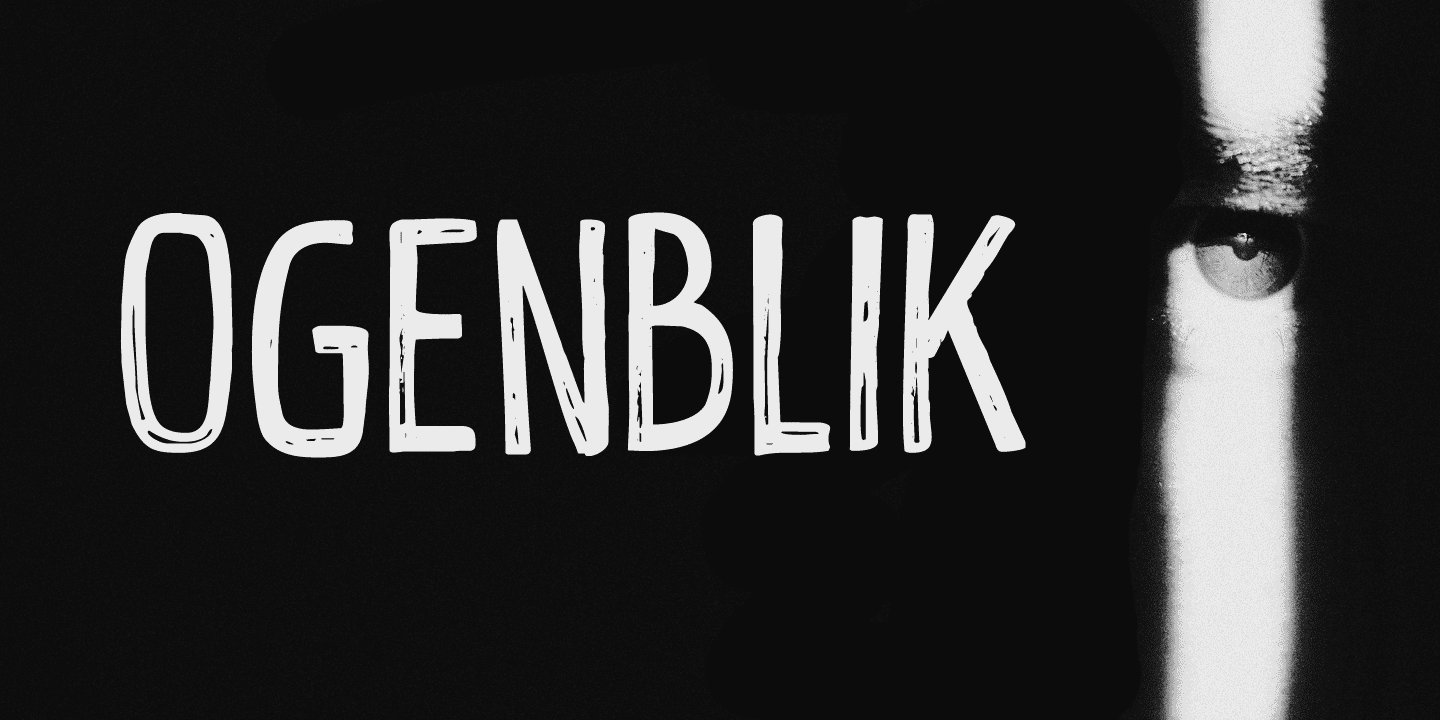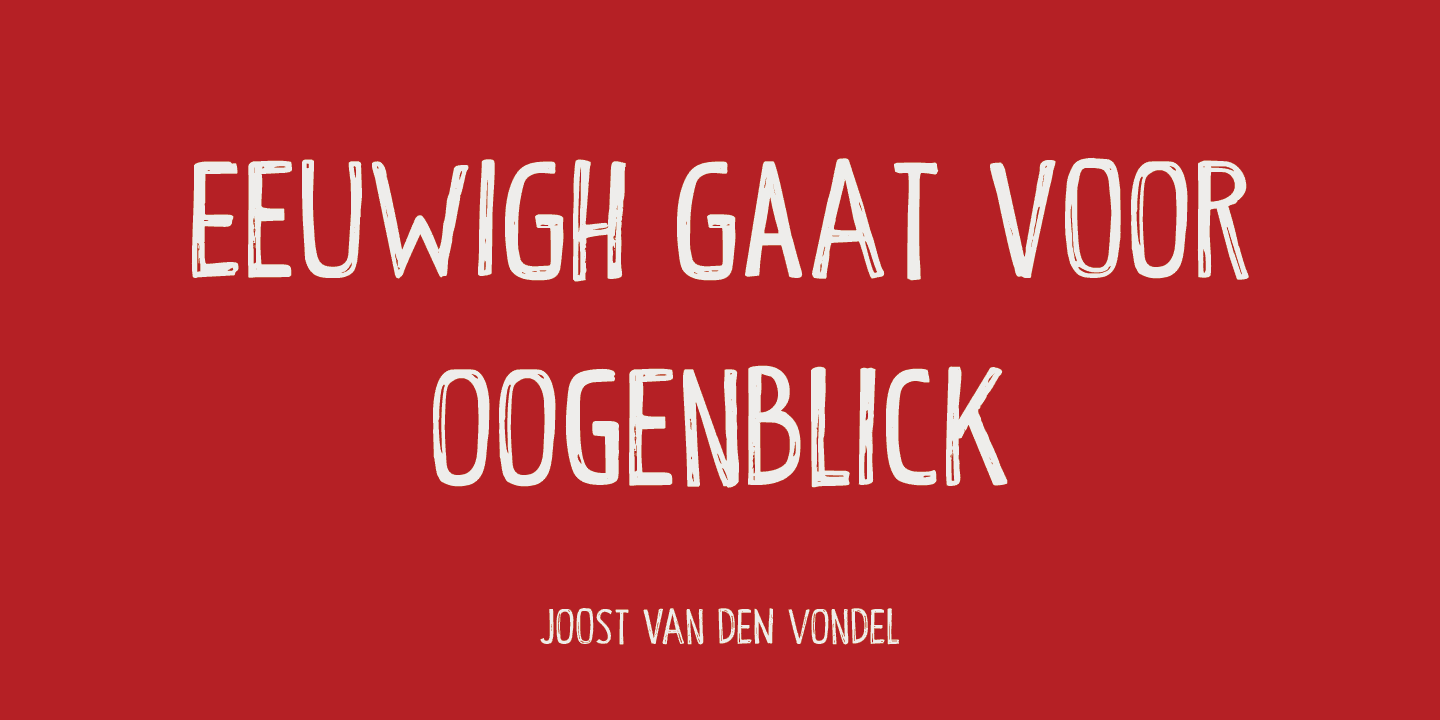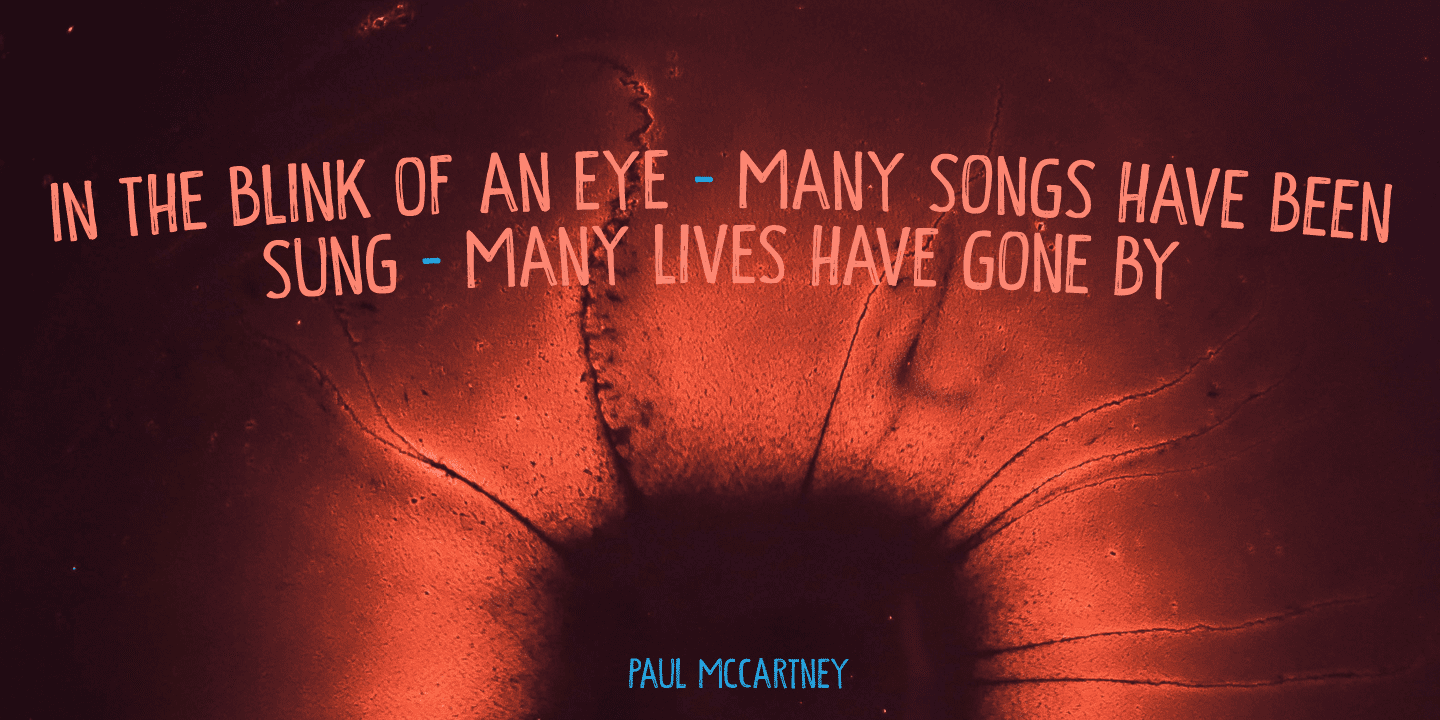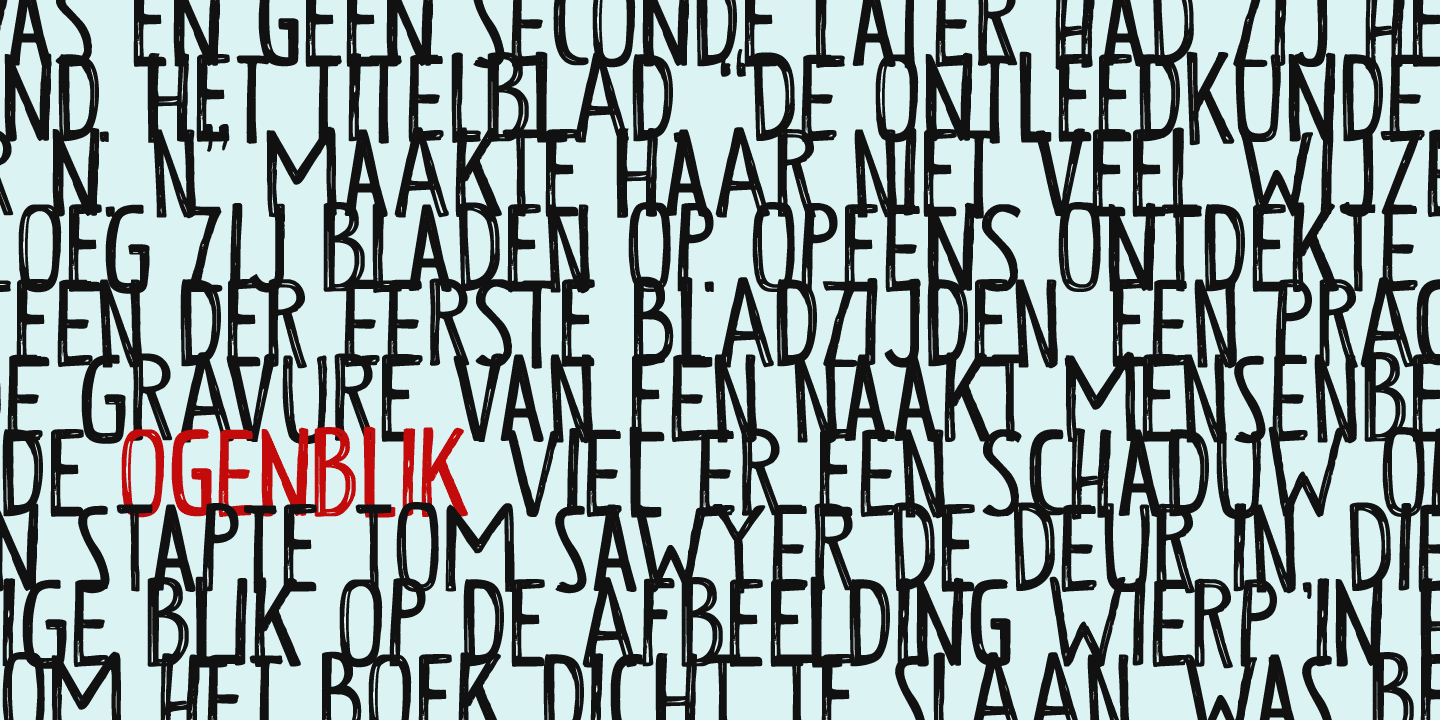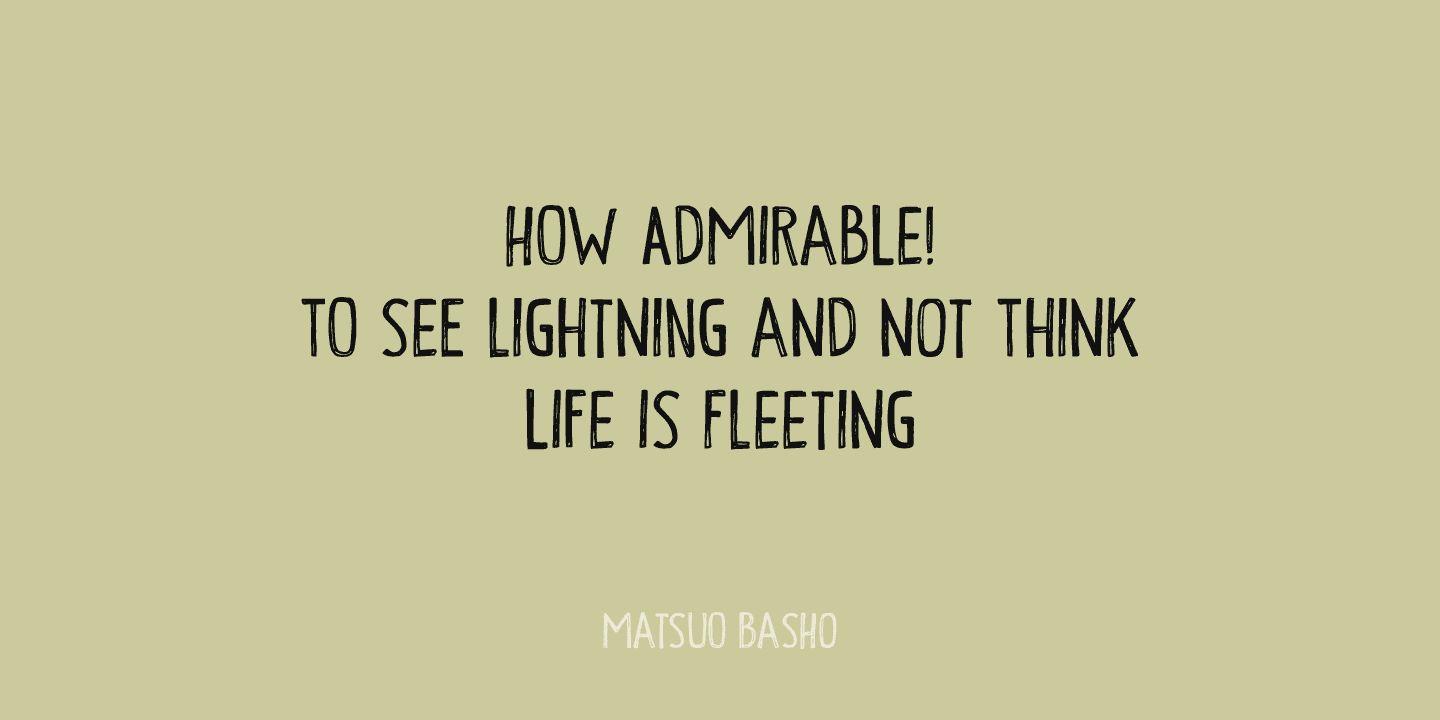
Ogenblik Family (2 fonts)
Ogenblik was made with the same dried out marker pen that helped me create my font Castlerigg. I guess it had more than one extra font in it!
Ogenblik is a bit of a grungy, yet quite legible and neat font. Comes with multilingual support.